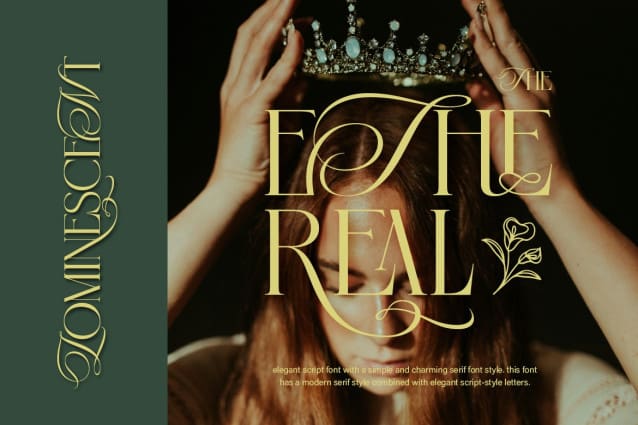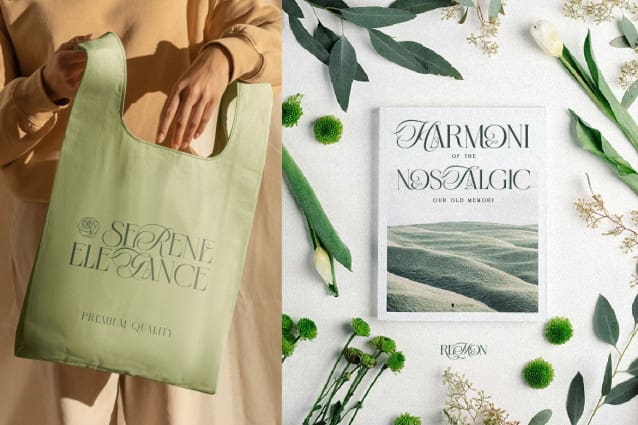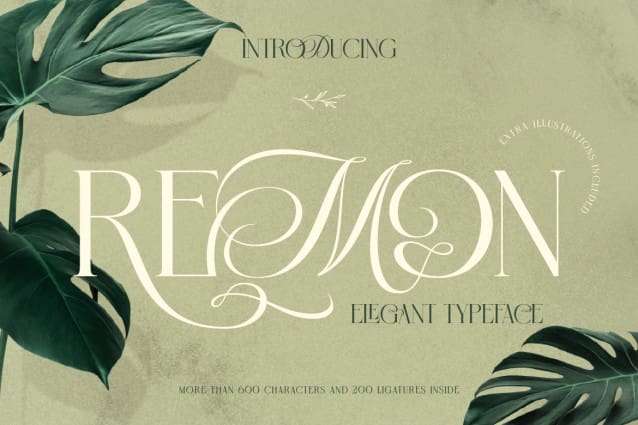
Remon Font
Remon Font, a classic serif style combined with elegant ligature script style letters. This elegant script font with a simple and charming serif font style, make it perfect for high end branding, editorial design, luxurious invitation, book cover, fashion and jewelry brand, elegant logotype, heartfelt message and etc. Each character is carefully crafted balance readability with an impression of classic elegance, ensuring your text stand out with gracefulness and difference. Also this font included simple illustration as bonus, to make your design look more elegance, aesthetic, luxurious, modern and timeless in style.